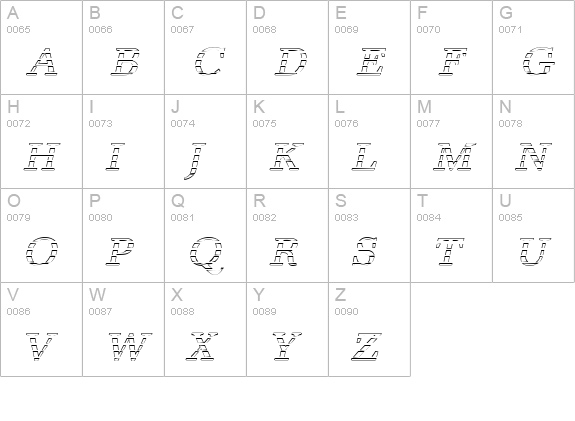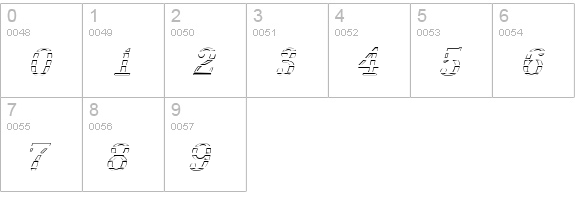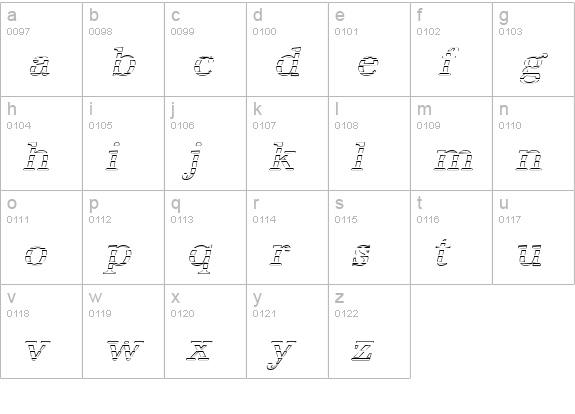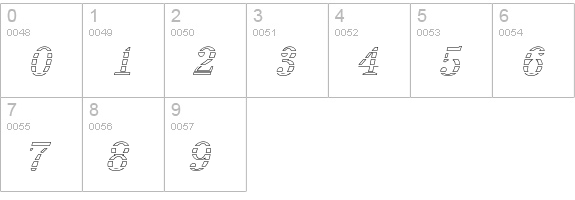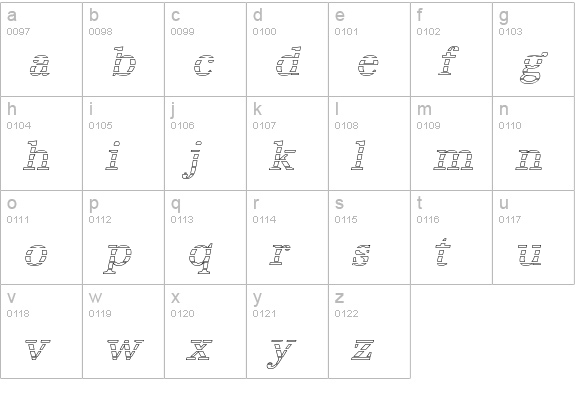
AntiquaGo-Italic is a distinctive, italic variant in the AntiquaGo typeface family \xE2\x80\x94 well suited to design and typography projects.
AntiquaGo-Italic is a stunning and elegant font that exudes sophistication and charm. Its delicate and flowing italic style adds a touch of class to any project, making it perfect for invitations, posters, and branding materials. The timeless design of AntiquaGo-Italic effortlessly combines classic and modern elements, creating a unique and versatile typeface that stands out from the crowd. Best of all, AntiquaGo-Italic is completely free to download at FontsMarket.com. This means you can add this stylish font to your collection without breaking the bank. Whether you're a designer looking to enhance your projects or a creative individual seeking a new font for personal use, AntiquaGo-Italic is sure to impress with its beauty and readability. Don't miss out on the opportunity to elevate your designs with AntiquaGo-Italic - download it for free today at FontsMarket.com and bring a touch of timeless elegance to your next project.